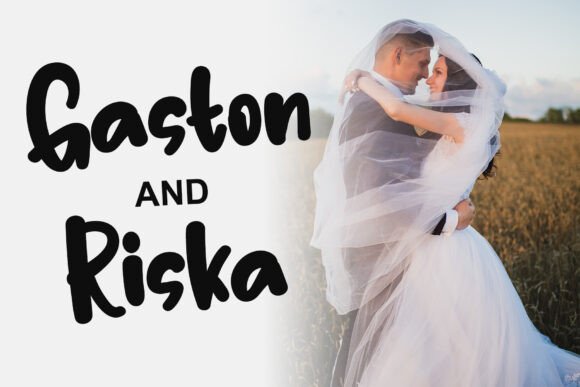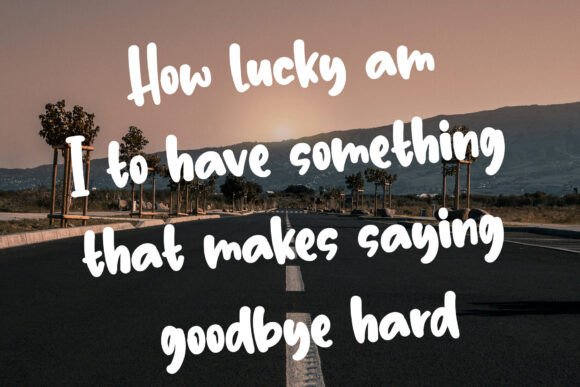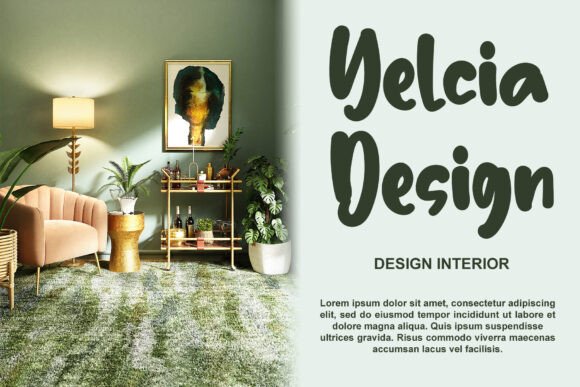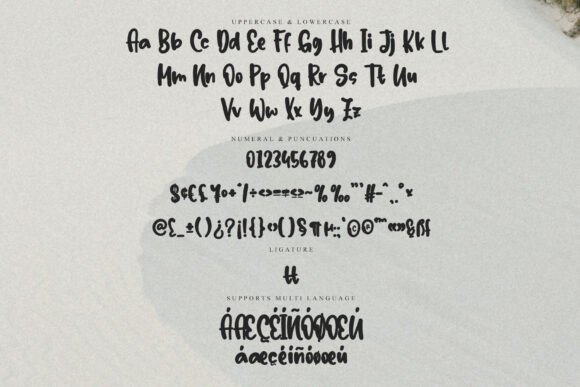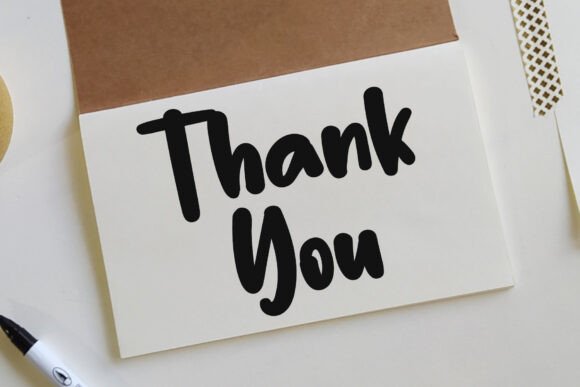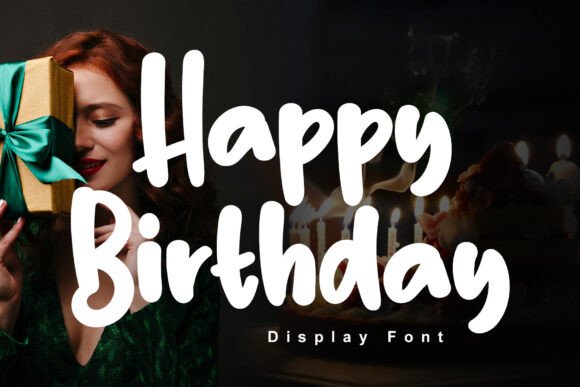
Happy Birthday Font: Add a Touch of Cheer to Your Designs
The holiday season is upon us, and what better way to celebrate than with a festive and happy typeface that captures the spirit of the season? Look no further than the Happy Birthday font, a decorative and charming font that’s perfect for greeting cards, gift labels, and holiday-themed projects.
What Makes Happy Birthday Font So Special?
Happy Birthday font is a unique and eye-catching typeface that’s designed to bring a cheerful and nostalgic atmosphere to your words. With its decorative elements and flair, it’s the perfect addition to any design project that requires a touch of holiday magic. Whether you’re a designer, crafter, or DIY enthusiast, this font is sure to delight.
As a designer or crafter, you’re always on the lookout for unique and creative ways to make your projects stand out. Happy Birthday font is the perfect solution. With its PUA (Private Use Area) coding, you can easily access all the amazing glyphs and ligatures, making it simple to incorporate into your designs. Whether you’re creating custom greeting cards, gift tags, or holiday-themed decorations, this font is sure to add a touch of charm and personality to your work.
Key Features of Happy Birthday Font
- Decorative Elements: Happy Birthday font features decorative elements that add a touch of holiday cheer to your designs.
- Unique Flair: This font has a unique flair that sets it apart from other typefaces, making it perfect for designers and crafters who want to add a personal touch to their work.
- PUA Coded: With PUA coding, you can easily access all the amazing glyphs and ligatures, making it simple to incorporate into your designs.
- Holiday-Themed: Happy Birthday font is specifically designed for holiday-themed projects, making it perfect for Christmas, birthday, and other celebratory designs.
Uses for Happy Birthday Font
Happy Birthday font is incredibly versatile and can be used for a wide range of design projects, including:
- Greeting Cards: Create custom greeting cards for birthdays, Christmas, and other holidays.
- Gift Labels: Add a personal touch to your gifts with custom labels featuring Happy Birthday font.
- Holiday-Themed Projects: Use Happy Birthday font to add a touch of holiday cheer to your projects, such as decorations, invitations, and more.
- DIY Crafts: Happy Birthday font is perfect for DIY crafters who want to add a personal touch to their projects, such as scrapbooking, journaling, and more.
Tips for Using Happy Birthday Font
Here are a few tips for using Happy Birthday font in your designs:
- Experiment with Colors: Try pairing Happy Birthday font with different colors to create a unique and eye-catching design.
- Mix and Match: Combine Happy Birthday font with other fonts and graphics to create a truly unique design.
- Pay Attention to Size: Make sure to adjust the size of Happy Birthday font to fit your design, ensuring it’s legible and visually appealing.